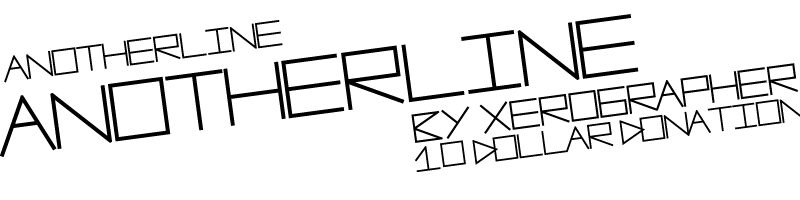
AnotherLine, designed by Max Infeld of Xerographer Foundry, is a free futuristic display font with very light, geometric lettering. Wide proportions, sharp diagonals, and open constructions give the forms an architectural quality, with several letters reduced to unexpected angular paths.
Its linear forms can become part of circuit diagrams or technical illustrations. That connection suits science-fiction posters, electronic music packaging, game interfaces, and technology branding, where the lettering can function as both a title and a schematic graphic.